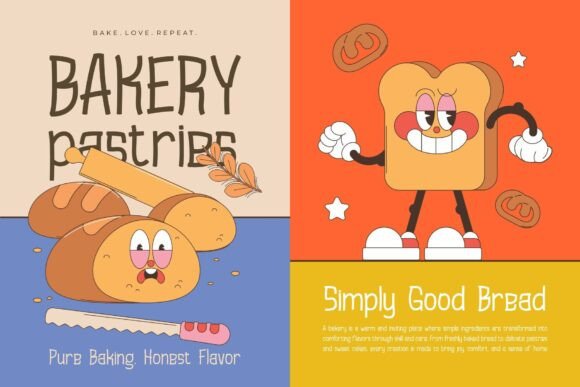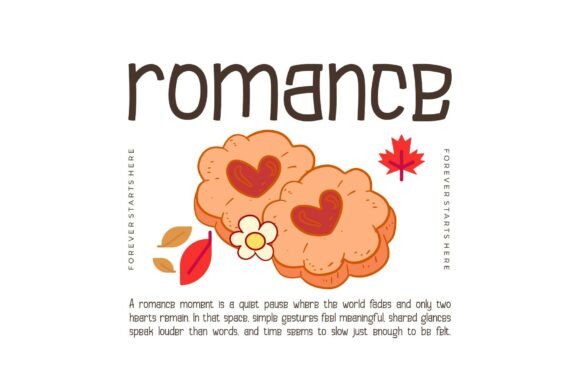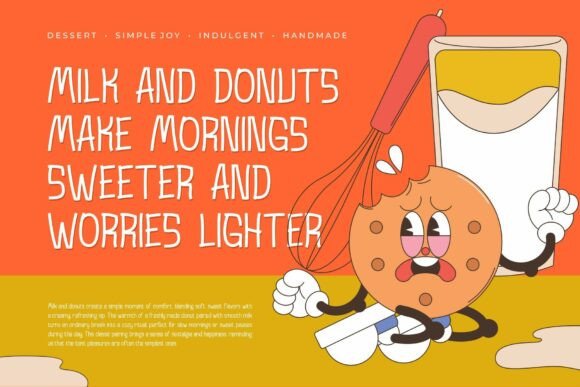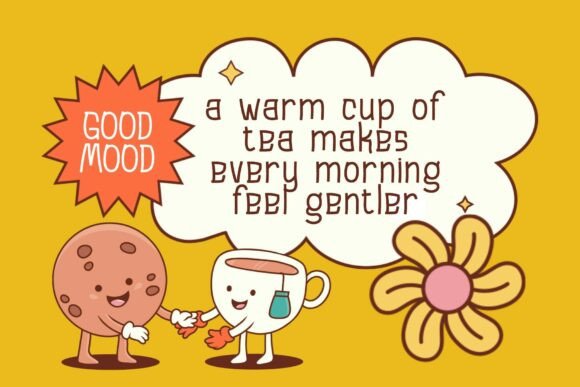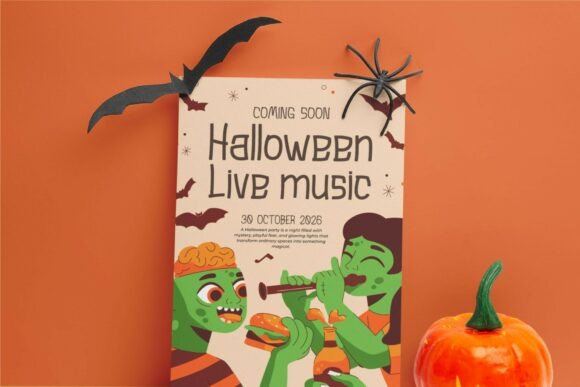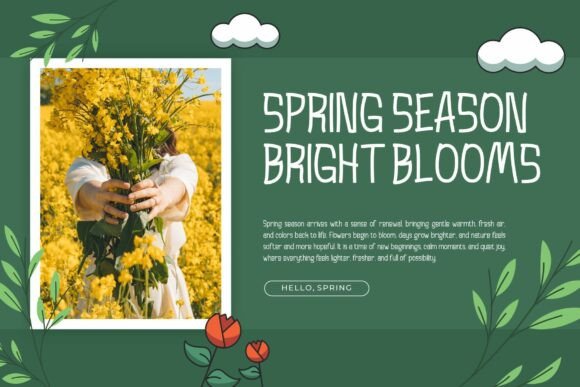
Discover the Whimsical Charm of Aroline Font: Elevate Your Designs with a Touch of Personality
Step into a world of whimsy and effortless charm with the Aroline font. This display handwritten typeface is the perfect embodiment of “playful professional,” offering a tall, condensed structure that maintains a friendly, approachable soul. Designed to feel like a neat yet spontaneous felt-tip pen sketch, the Aroline typeface breathes life into layouts that need to feel personal and heartwarming.
Unleash Your Creativity with Aroline’s Unique Characteristics
The Aroline font boasts a slender, condensed structure that makes it an excellent choice for vertical designs, social media stories, and quirky editorial headers where space is a premium but personality is a requirement. Its unique characteristics include:
• Tall and condensed structure: Perfect for vertical designs and space-saving layouts.
• Slender proportions: Ideal for social media stories, editorial headers, and designs where space is limited.
• Playful and professional: Embodies a friendly, approachable soul that’s perfect for designs that require a personal touch.
• Handwritten feel: Crafted to resemble a neat yet spontaneous felt-tip pen sketch.
Pair Aroline with Perfect Color Palettes for Stunning Designs
The Aroline font thrives when paired with soft pastel palettes or vibrant, sunny aesthetics. The preview showcases the font’s versatility and ability to complement a range of color schemes. Some popular pairing options include:
• Soft pastels: Create a soothing and calming atmosphere with gentle pastel hues.
• Vibrant and sunny: Add a pop of color and energy to your designs with bright and cheerful palettes.
Endless Design Possibilities with Aroline Font
The Aroline font is the ultimate companion for a variety of design projects that require a “human” touch without the messiness of traditional handwriting. Some popular use cases include:
• Children’s book titles: Add a touch of whimsy and personality to your book covers and interior designs.
• Organic food packaging: Convey a sense of freshness and friendliness with Aroline’s playful yet professional vibe.
• Greeting cards: Create heartfelt and personalized cards for special occasions.
• Boutique nursery brand identity: Establish a unique and charming brand voice with Aroline’s distinctive character.
• Upbeat classroom materials: Engage students with visually appealing and fun educational resources.
Why Choose Aroline Font for Your Design Projects?
Aroline font offers a unique combination of playfulness, professionalism, and personality that sets it apart from other typefaces. By choosing Aroline, you’ll benefit from:
• Instant recognition: Aroline’s distinctive character makes it easy to create memorable designs.
• Emotional connection: The font’s friendly and approachable soul helps establish an emotional connection with your audience.
• Versatility: Aroline’s slender proportions and unique characteristics make it suitable for a wide range of design applications.
Whether you’re a designer, crafter, or DIY enthusiast, the Aroline font is an excellent addition to your creative toolkit. Its unique blend of whimsy, playfulness, and professionalism makes it the perfect choice for designs that require a personal touch.
Get Ready to Elevate Your Designs with Aroline Font
Discover the endless possibilities of Aroline font and take your designs to the next level. With its distinctive character, versatility, and emotional appeal, Aroline is sure to become your go-to typeface for a wide range of creative projects.